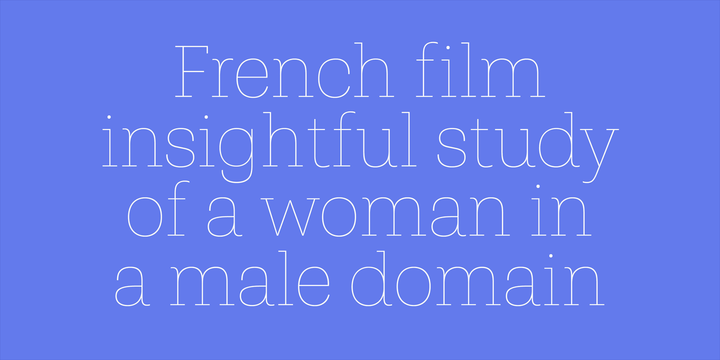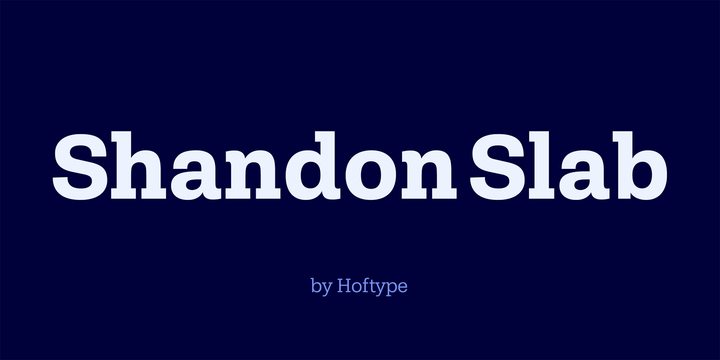
Shandon Slab Font Family
Thank you for your interest in this typeface. It is a new font family, with 18 fonts. Introducing Shandon Slab! It is designed and shared by Hoftype. Shandon Slab adds a new colour to the prominent family of serif-dominant typefaces. A distinctive look with its slightly flowing characteristics sets it apart from most members of the category. The contrasting italic styles add a vivid accent. Shandon Slab is predestined for editorials, headlines, and eye-catching text applications.